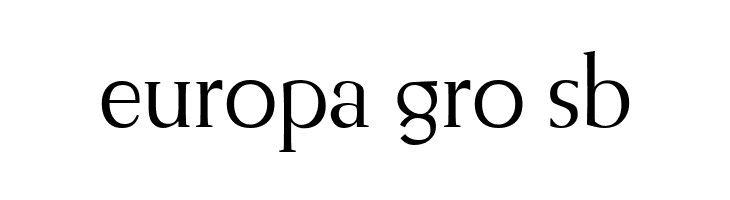
A classic serif font with elegant serifs and medium contrast, perfect for formal designs.
A classic serif font with elegant strokes and sharp serifs, perfect for formal designs.